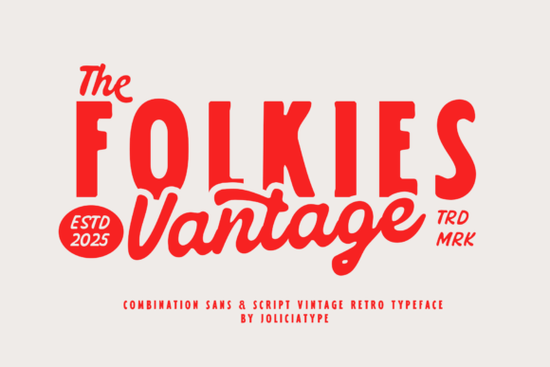
If you're looking for a font that feels both handmade and intentional like something pulled from a 1950s diner sign or stamped onto a burlap coffee bag Folkies Vantage Font fits that need quietly and confidently. It’s not flashy or overly polished. Instead, it leans into texture, contrast, and quiet authenticity. That’s why designers working on rustic packaging, small-batch product labels, or local café branding often reach for it first.
What kind of projects does Folkies Vantage work well for?
This font shines where personality matters more than perfection. Think t-shirt prints with a laid-back, lived-in vibe or a logotype for a neighborhood bike repair shop that wants to feel grounded, not generic. Because it’s a duo (Sans Serif + Script), you can pair the clean, sturdy sans for headlines or body text with the expressive script for accents, names, or short phrases. The contrast isn’t jarring it’s conversational, like two voices that complement each other.
How does it compare to other vintage-inspired fonts?
Folkies Vantage stands out because it doesn’t rely solely on distressed effects or heavy ornamentation to feel “old.” Its strength comes from balance: the sans has subtle weight shifts and slightly uneven terminals, while the script carries natural rhythm not over-scripted calligraphy, but something closer to chalk lettering on a wooden board. That makes it more versatile than fonts that lean too hard into one aesthetic.
If you’ve tried the Solveige Atelier font, you’ll notice Folkies Vantage is less formal and more grounded in everyday craft. Compared to Garlic Shine font, it trades playful bounce for subtle grit. And unlike Gracias font, which leans into Latin-inflected warmth, Folkies Vantage draws from mid-century American signage traditions think roadside motels, soda fountains, and garage marquees.
You’ll also find it sits comfortably alongside other limited-edition sans-serif fonts on Creative Fabrica, especially those designed with real-world print use in mind. Its OpenType features include ligatures and alternate characters, so you can fine-tune how much texture or variation appears without switching fonts.
Does it work well for digital use or just print?
Yes, but with nuance. On screen, it reads best at larger sizes (24pt+ for headings) and benefits from generous line spacing. For web use, it’s ideal for hero sections, email headers, or social media graphics not long-form body copy. For print, it holds up beautifully on textured papers, kraft labels, or uncoated stock. The slight imperfections in the outlines actually enhance its presence when printed, rather than distract from it.
That said, avoid pairing it with ultra-thin or geometric sans fonts (like Montserrat Light or Inter Thin). Instead, try it with a sturdy, low-contrast sans something like Folkies Vantage Font’s own sans style, or even a neutral workhorse like Lato Regular for supporting text.
Who tends to get the most value from this font?
Small business owners who design their own assets especially those without a dedicated designer often tell us they appreciate how little tweaking Folkies Vantage needs. You don’t have to layer textures or add noise to make it feel authentic. The character is built in. Crafters using Cricut or Silhouette machines also report good results: the bold strokes cut cleanly, and the script version works well for vinyl decals when sized appropriately (minimum 1.5" height recommended).
Designers building brand systems for clients in food, apparel, or hospitality find it especially helpful as a “bridge” font distinct enough to stand alone, but flexible enough to pair with more neutral typefaces for scalability.
One practical tip before downloading: preview both the Sans and Script versions side-by-side in your layout software. Try setting your main headline in the sans, then swapping just the first word or brand name into the script. That’s often all it takes to add warmth without sacrificing clarity.